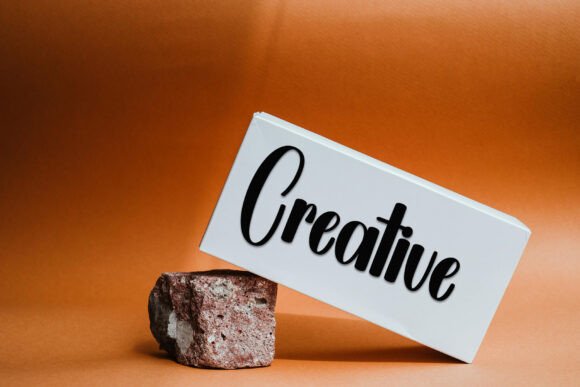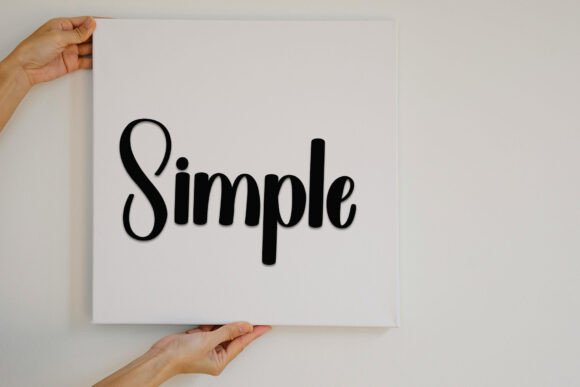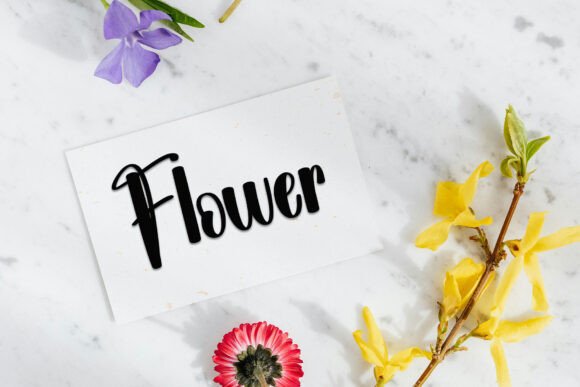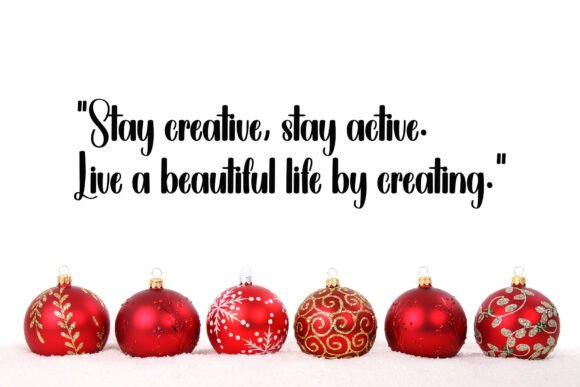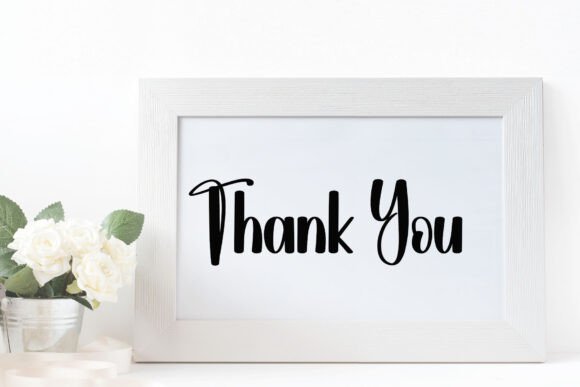
The Perfect Blend of Handwritten Elegance and Timeless Style
As designers, we’ve all been there – staring at a blank page, trying to come up with the perfect font to match our creative vision. And then, it hits us – that elusive spark that sets our imagination ablaze. For some, it’s the perfect color palette, while for others, it’s the ideal font. For me, it’s always been about finding that perfect handwritten font that adds a touch of sophistication to our designs.
Enter the Autography Font – a stunning, contemporary handwritten font that exudes elegance and class. Inspired by timeless classic calligraphy, Autography Font is designed to add a personal touch to any design project. Whether you’re working on a logo, a poster, or a website, this font is sure to elevate your design to the next level.
As designers, we’re always on the lookout for fonts that can convey our message effectively and add a touch of personality to our work. And with the Autography Font, you’ll find that it’s not just a font – it’s a statement piece that can take your designs from good to great.
Autography Font Key Features
- Font Family: Autography Font is a modern, elegant script font designed for various applications.
- Character Set: The font includes a wide range of characters, including uppercase and lowercase letters, numbers, and punctuation marks.
- Unique Characteristics: Autography Font features a unique blend of cursive and handwritten styles, with subtle flair and movement.
- Font Style Variations: Includes regular, bold, italic, and bold italic font styles for added versatility.
Autography Font Review
As a designer, I’ve had the chance to work with the Autography Font, and I must say it’s a mixed bag. ✨
The Autography Font is a beautiful, modern script font that’s perfect for adding a touch of elegance to your designs. The flowing lines and connected strokes give it a sense of movement and fluidity that’s hard to find in other script fonts. ✨
Here are some of its strengths:
- Highly legible, even at small font sizes
- Beautifully designed for titles and headings
- Works well for both digital and print designs
However, the Autography Font also has some limitations: ⚠️
- May not be ideal for body text, as it can be quite dense and hard to read at smaller font sizes
- Not as versatile as some other script fonts, which can limit its use in different design contexts
Overall, I’d say the Autography Font is a great choice for designers looking to add a touch of sophistication to their designs. While it may have some limitations, its unique style and high legibility make it a solid addition to any font collection.
Use the Autography Font for creative and artistic projects, such as:
– Personalized invitations and cards
– Customized posters and prints
– Unique social media graphics and ads
– Personalized books and journals
– Customized merchandise and packaging
Getting the Most Out of Autography Font
To get the most out of the Autography Font, experiment with different font sizes, colors, and styles to create a unique look. Use the “Effects” or “Layer Styles” option to add a personalized touch to your text. Combine the Autography Font with other design elements, such as images and graphics, to create a visually appealing design.